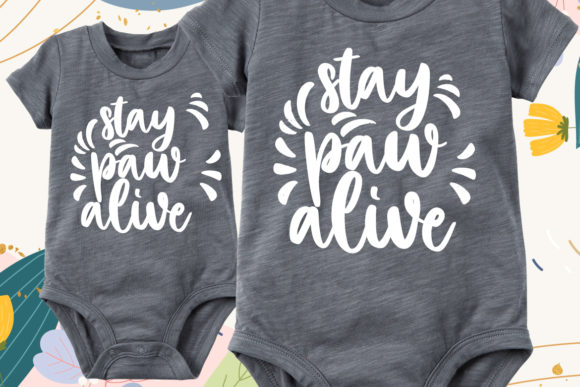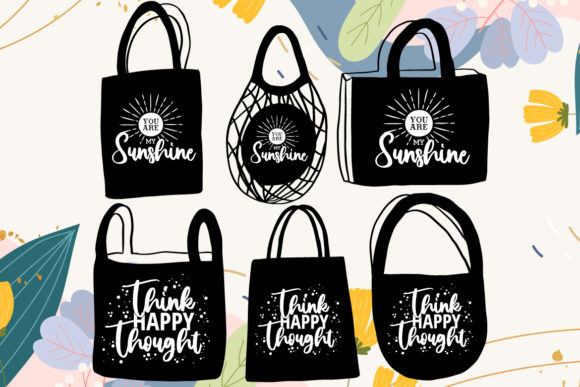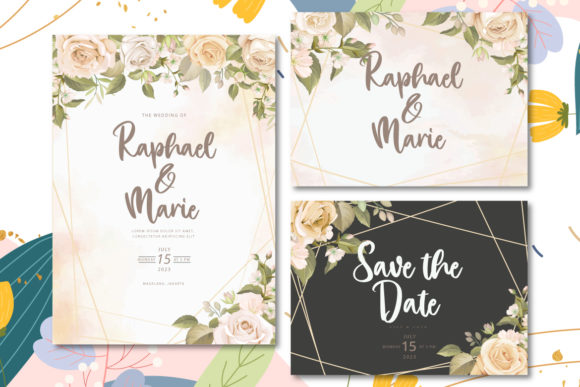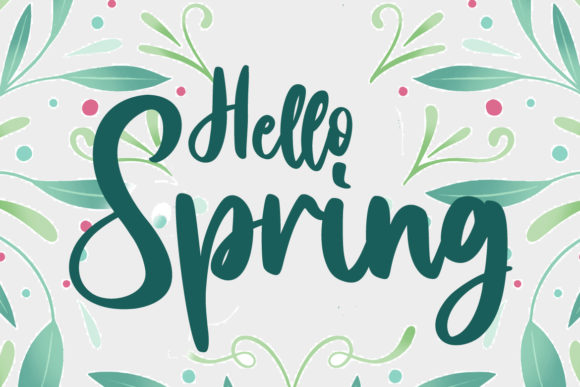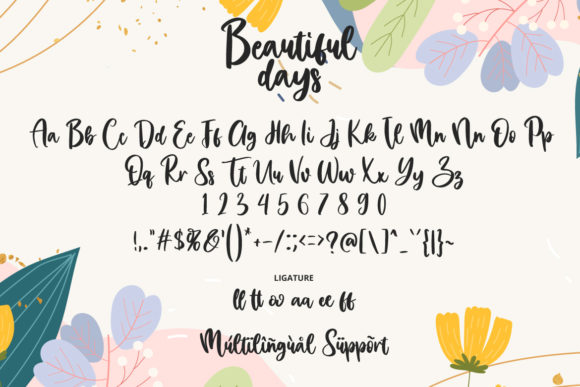
Discover the Elegance of Beautiful Days Font: Elevate Your Designs with Timeless Style
In the world of typography, few fonts capture the essence of elegance and sophistication as beautifully as the Beautiful Days Font. This stunning, flowing handwritten font is designed to add a touch of class and refinement to any project, making it a perfect choice for designers and crafters looking to create spectacular designs. With its incredibly distinct and timeless style, Beautiful Days Font is sure to fall into your heart and become a staple in your design arsenal.
The Characteristics of Beautiful Days Font
Beautiful Days Font is described by its elegant touch, which is achieved through its unique blend of flowing lines and delicate curves. This font is perfect for a wide range of projects, from romantic wedding invitations and stylish branding materials to captivating posters and eye-catching packaging. Its versatility and charm make it an excellent addition to any design collection.
One of the standout features of Beautiful Days Font is its PUA (Private Use Area) encoding. This means that you can easily access all of the glyphs and swashes, allowing you to experiment with different combinations and create truly unique designs. The font’s encoding ensures that you have complete creative control, making it easier to bring your vision to life.
Why Choose Beautiful Days Font?
So, what sets Beautiful Days Font apart from other fonts in its category? Here are a few reasons why designers and crafters are falling in love with this beautiful font:
- Elegant and Sophisticated: Beautiful Days Font exudes elegance and sophistication, making it perfect for high-end designs and luxury brands.
- Timeless Style: The font’s classic style ensures that your designs will remain timeless and relevant for years to come.
- Versatile: Beautiful Days Font can be used for a wide range of projects, from digital designs to print materials.
- Easy to Use: The font’s PUA encoding makes it easy to access and use the glyphs and swashes, even for those with limited design experience.
Tips for Using Beautiful Days Font
To get the most out of Beautiful Days Font, here are a few tips to keep in mind:
- Pair it with Other Fonts: Beautiful Days Font pairs well with other fonts, especially those with a more modern or minimalist style. Experiment with different combinations to find the perfect balance for your design.
- Experiment with Glyphs and Swashes: Take advantage of the font’s PUA encoding and experiment with different glyphs and swashes to add unique touches to your design.
- Use it for Headings and Titles: Beautiful Days Font is perfect for headings and titles, where its elegant style can really shine.
Beautiful Days Font in Action
Beautiful Days Font can be used in a wide range of projects, from romantic wedding invitations to stylish branding materials. Here are a few examples of how this font can be used in action:
- Wedding Invitations: Use Beautiful Days Font to create stunning wedding invitations that set the tone for a romantic and elegant celebration.
- Branding Materials: Add a touch of sophistication to your branding materials, such as business cards and letterheads, with Beautiful Days Font.
- Posters and Flyers: Use Beautiful Days Font to create eye-catching posters and flyers that grab attention and leave a lasting impression.
In conclusion, Beautiful Days Font is a stunning, flowing handwritten font that is sure to capture your heart. With its elegant touch, timeless style, and versatility, it’s the perfect addition to any design collection. Whether you’re a designer or crafter, Beautiful Days Font is a must-have font that will help you create spectacular designs that stand out from the crowd.